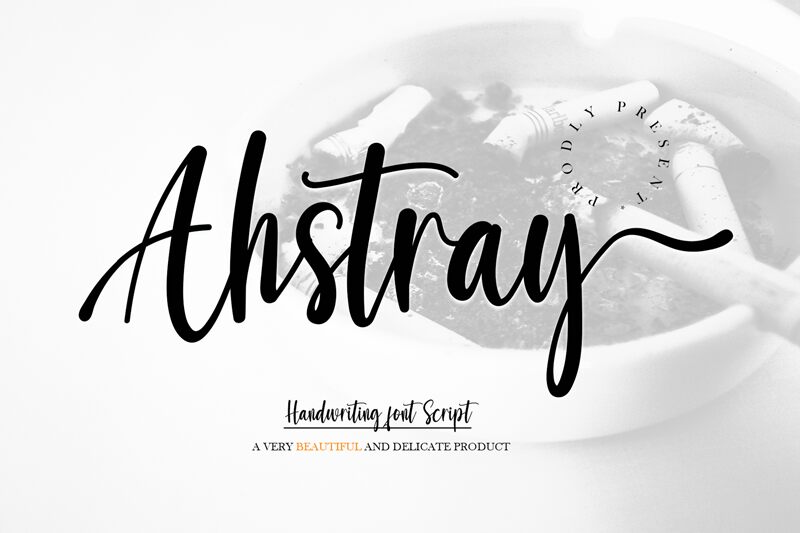
Ahstray font
Ahstray
This font retains a classy calligraphic influence while feeling contemporary and fresh. Its versatility will inspire a wide range of creative ideas, from letterheads and titles to stationery.